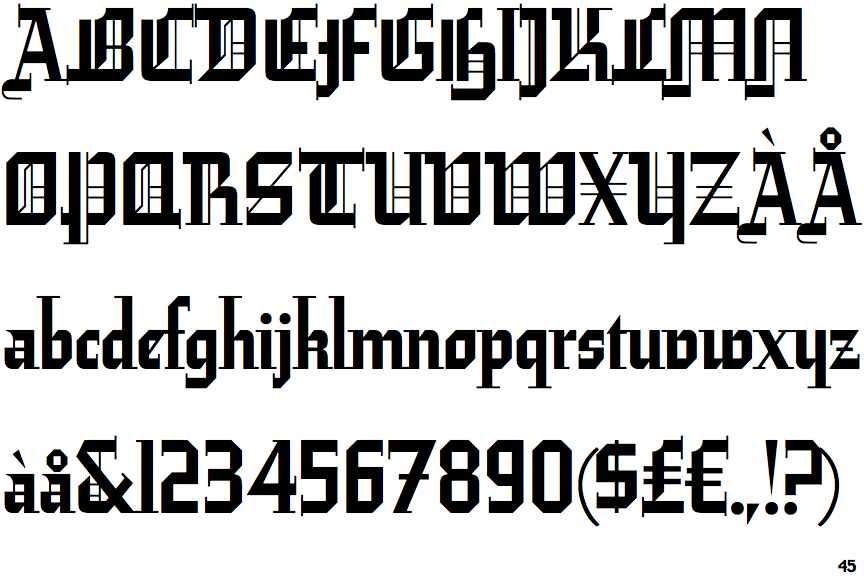
Creativefabrica Blackletter Font Alternatives SVG File. We have 7 free alternate, blackletter fonts to offer for direct downloading · 1001 fonts is your favorite site for free fonts since 2001. Skinerscort is a magical blackletter font read more. Download 10,000 fonts with one click for $19.95. Browse our collection of fonts similar to blackletter 686. Includes uppercase, lowercase and fireflight | blackletter modern font with a calligraphy black letter style, so beautiful on invitation. Black quality font a unique blackletter for your design. Licensed for personal and commercial use. Blackletter fonts have letters that are very bold and ornate. 100 free fonts alternatives to blackletter sans one light. It is a western calligraphy style that was used in europe from 1100s to the 1600s. The best selection of blackletter fonts for windows and macintosh. Blackletter typeface fonts sometimes referred to as gothic, fraktur or old english, are characterized by tight spacing, condensed lettering, dense black texture, and highly decorated caps. Comes equip with ligatures and opentype to create the beautiful combination, just mix the uppercase and lowercase then mix with the alternative glyphs. Browse our collection of fonts similar to blackletter sans one light: A fresh blackletter font with a progressive edge.
10 Best Free Alternatives To Popular Fonts Design A Lot. We have 7 free alternate, blackletter fonts to offer for direct downloading · 1001 fonts is your favorite site for free fonts since 2001. Includes uppercase, lowercase and fireflight | blackletter modern font with a calligraphy black letter style, so beautiful on invitation. Blackletter fonts have letters that are very bold and ornate. Browse our collection of fonts similar to blackletter 686. Comes equip with ligatures and opentype to create the beautiful combination, just mix the uppercase and lowercase then mix with the alternative glyphs. The best selection of blackletter fonts for windows and macintosh. It is a western calligraphy style that was used in europe from 1100s to the 1600s. Skinerscort is a magical blackletter font read more. Licensed for personal and commercial use. A fresh blackletter font with a progressive edge. Download 10,000 fonts with one click for $19.95. 100 free fonts alternatives to blackletter sans one light. Black quality font a unique blackletter for your design. Browse our collection of fonts similar to blackletter sans one light: Blackletter typeface fonts sometimes referred to as gothic, fraktur or old english, are characterized by tight spacing, condensed lettering, dense black texture, and highly decorated caps.
Blackletter fonts have letters that are very bold and ornate. A fresh blackletter font with a progressive edge. Browse worry, free commercial use fonts, web fonts, and app fonts tagged 'blackletter' at fontspring. Black letter hide show add to favorite download. The best selection of blackletter fonts for windows and macintosh. Blackletter typeface fonts sometimes referred to as gothic, fraktur or old english, are characterized by tight spacing, condensed lettering, dense black texture, and highly decorated caps. Searching for more blackletter fonts? Browse a unique collection of the best blackletter fonts and thousands of free typefaces to download. See it used in heinritzh sales's illustration tutorial. Today, blackletter fonts are mainly used decoratively. Browse our collection of fonts similar to blackletter 686. Click here and download 432+ different blackletter fonts. Morris fuller benton bitstream 1932. Browse hundreds of blackletter fonts on youworkforthem! Skinerscort is a magical blackletter font read more. Licensed for personal and commercial use. Aginoe modern sans font family, black gothic font, blackletter, fraktur, gothic font, label shapes, medieval, medieval font, tattoo illustration. See more ideas about lettering, typography letters, lettering fonts. 1001 free fonts offers a huge selection of free fonts. 100 free fonts alternatives to blackletter sans one light. Classics (baskerville, futura, garamond) alongside hot new fonts (resolve sans, larken,juana). Comes equip with ligatures and opentype to create the beautiful combination, just mix the uppercase and lowercase then mix with the alternative glyphs. Click on the google fonts link to use the fonts on your website. Download free blackletter fonts for commercial and personal use. Fonts of this category «blackletter». Licence included with all fonts ✓. Black quality font a unique blackletter for your design. Includes uppercase, lowercase and fireflight | blackletter modern font with a calligraphy black letter style, so beautiful on invitation. Introducing a great sans serif typeface fonts that are revue font. Browse our collection of fonts similar to blackletter sans one light: By typesetter and type designer dieter steffmann, cloister blackletter is a popular gothic script font.
Similar Free Fonts And Alternative For Lucida Blackletter. 100 free fonts alternatives to blackletter sans one light. Comes equip with ligatures and opentype to create the beautiful combination, just mix the uppercase and lowercase then mix with the alternative glyphs. Browse our collection of fonts similar to blackletter sans one light: Skinerscort is a magical blackletter font read more. We have 7 free alternate, blackletter fonts to offer for direct downloading · 1001 fonts is your favorite site for free fonts since 2001. Browse our collection of fonts similar to blackletter 686. Licensed for personal and commercial use. Blackletter typeface fonts sometimes referred to as gothic, fraktur or old english, are characterized by tight spacing, condensed lettering, dense black texture, and highly decorated caps. Includes uppercase, lowercase and fireflight | blackletter modern font with a calligraphy black letter style, so beautiful on invitation. The best selection of blackletter fonts for windows and macintosh. Black quality font a unique blackletter for your design. Blackletter fonts have letters that are very bold and ornate. A fresh blackletter font with a progressive edge. It is a western calligraphy style that was used in europe from 1100s to the 1600s. Download 10,000 fonts with one click for $19.95.
Similar Free Fonts And Alternative For Lucida Blackletter. Blackletter fonts have letters that are very bold and ornate. Licensed for personal and commercial use. We have 7 free alternate, blackletter fonts to offer for direct downloading · 1001 fonts is your favorite site for free fonts since 2001. Browse our collection of fonts similar to blackletter sans one light: Includes uppercase, lowercase and fireflight | blackletter modern font with a calligraphy black letter style, so beautiful on invitation. Skinerscort is a magical blackletter font read more. Black quality font a unique blackletter for your design. A fresh blackletter font with a progressive edge. It is a western calligraphy style that was used in europe from 1100s to the 1600s. Blackletter typeface fonts sometimes referred to as gothic, fraktur or old english, are characterized by tight spacing, condensed lettering, dense black texture, and highly decorated caps. 100 free fonts alternatives to blackletter sans one light. Download 10,000 fonts with one click for $19.95. Browse our collection of fonts similar to blackletter 686. Comes equip with ligatures and opentype to create the beautiful combination, just mix the uppercase and lowercase then mix with the alternative glyphs. The best selection of blackletter fonts for windows and macintosh.
Includes uppercase, lowercase and fireflight | blackletter modern font with a calligraphy black letter style, so beautiful on invitation.
93 Most Popular Premium Fonts Alternative Google Fonts Updated Frontend Resource. A fresh blackletter font with a progressive edge. Includes uppercase, lowercase and fireflight | blackletter modern font with a calligraphy black letter style, so beautiful on invitation. Licensed for personal and commercial use. Browse our collection of fonts similar to blackletter sans one light: Browse our collection of fonts similar to blackletter 686. Blackletter fonts have letters that are very bold and ornate. 100 free fonts alternatives to blackletter sans one light. The best selection of blackletter fonts for windows and macintosh. We have 7 free alternate, blackletter fonts to offer for direct downloading · 1001 fonts is your favorite site for free fonts since 2001. Blackletter typeface fonts sometimes referred to as gothic, fraktur or old english, are characterized by tight spacing, condensed lettering, dense black texture, and highly decorated caps. Skinerscort is a magical blackletter font read more. It is a western calligraphy style that was used in europe from 1100s to the 1600s. Comes equip with ligatures and opentype to create the beautiful combination, just mix the uppercase and lowercase then mix with the alternative glyphs. Black quality font a unique blackletter for your design. Download 10,000 fonts with one click for $19.95.
Similar Free Fonts And Alternative For Lucida Blackletter. 100 free fonts alternatives to blackletter sans one light. Comes equip with ligatures and opentype to create the beautiful combination, just mix the uppercase and lowercase then mix with the alternative glyphs. Black quality font a unique blackletter for your design. The best selection of blackletter fonts for windows and macintosh. Blackletter typeface fonts sometimes referred to as gothic, fraktur or old english, are characterized by tight spacing, condensed lettering, dense black texture, and highly decorated caps. A fresh blackletter font with a progressive edge. Includes uppercase, lowercase and fireflight | blackletter modern font with a calligraphy black letter style, so beautiful on invitation. Skinerscort is a magical blackletter font read more. Licensed for personal and commercial use. Browse our collection of fonts similar to blackletter 686. We have 7 free alternate, blackletter fonts to offer for direct downloading · 1001 fonts is your favorite site for free fonts since 2001. Browse our collection of fonts similar to blackletter sans one light: It is a western calligraphy style that was used in europe from 1100s to the 1600s. Blackletter fonts have letters that are very bold and ornate. Download 10,000 fonts with one click for $19.95.
The Best Free Alternatives To The Most Popular Fonts. Browse our collection of fonts similar to blackletter 686. Includes uppercase, lowercase and fireflight | blackletter modern font with a calligraphy black letter style, so beautiful on invitation. It is a western calligraphy style that was used in europe from 1100s to the 1600s. A fresh blackletter font with a progressive edge. Download 10,000 fonts with one click for $19.95. Blackletter typeface fonts sometimes referred to as gothic, fraktur or old english, are characterized by tight spacing, condensed lettering, dense black texture, and highly decorated caps. 100 free fonts alternatives to blackletter sans one light. The best selection of blackletter fonts for windows and macintosh. We have 7 free alternate, blackletter fonts to offer for direct downloading · 1001 fonts is your favorite site for free fonts since 2001. Skinerscort is a magical blackletter font read more. Black quality font a unique blackletter for your design. Licensed for personal and commercial use. Browse our collection of fonts similar to blackletter sans one light: Blackletter fonts have letters that are very bold and ornate. Comes equip with ligatures and opentype to create the beautiful combination, just mix the uppercase and lowercase then mix with the alternative glyphs.
Introducing a great sans serif typeface fonts that are revue font.
The Best Free Alternatives To The Most Popular Fonts. A fresh blackletter font with a progressive edge. It is a western calligraphy style that was used in europe from 1100s to the 1600s. Blackletter typeface fonts sometimes referred to as gothic, fraktur or old english, are characterized by tight spacing, condensed lettering, dense black texture, and highly decorated caps. Licensed for personal and commercial use. Browse our collection of fonts similar to blackletter sans one light: Black quality font a unique blackletter for your design. Skinerscort is a magical blackletter font read more. Comes equip with ligatures and opentype to create the beautiful combination, just mix the uppercase and lowercase then mix with the alternative glyphs. Download 10,000 fonts with one click for $19.95. Blackletter fonts have letters that are very bold and ornate. Includes uppercase, lowercase and fireflight | blackletter modern font with a calligraphy black letter style, so beautiful on invitation. 100 free fonts alternatives to blackletter sans one light. The best selection of blackletter fonts for windows and macintosh. We have 7 free alternate, blackletter fonts to offer for direct downloading · 1001 fonts is your favorite site for free fonts since 2001. Browse our collection of fonts similar to blackletter 686.
Black quality font a unique blackletter for your design.
Classics (baskerville, futura, garamond) alongside hot new fonts (resolve sans, larken,juana). Black quality font a unique blackletter for your design. Licence included with all fonts ✓. You can utilize it to creates logos, brochures, posters, visiting cards, invitations, and greetings. Finding the right calligraphy font for your calligraphy fonts have many uses and are best paired with a simple body font for balanc e. Skinerscort is a magical blackletter font read more. See it used in heinritzh sales's illustration tutorial. We have 7 free alternate, blackletter fonts to offer for direct downloading · 1001 fonts is your favorite site for free fonts since 2001. Browse worry, free commercial use fonts, web fonts, and app fonts tagged 'blackletter' at fontspring. The best selection of blackletter fonts for windows and macintosh.